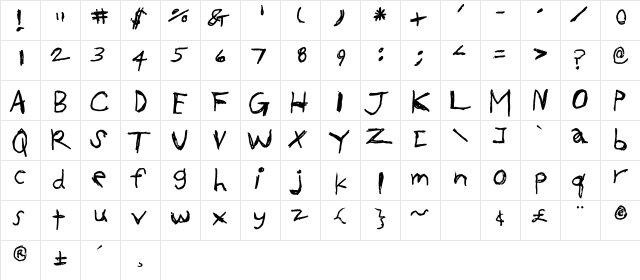
OKCOK Regular
Design Context for OKCOK Typeface
OKCOK is a composed and adaptable typeface that performs quietly and consistently across a wide range of design contexts.